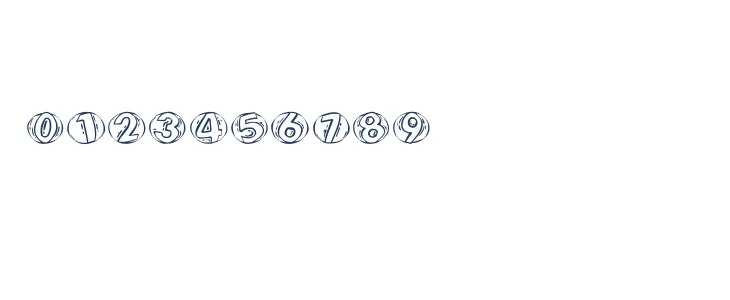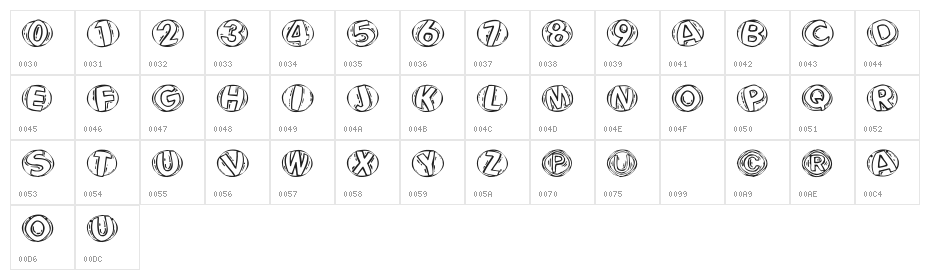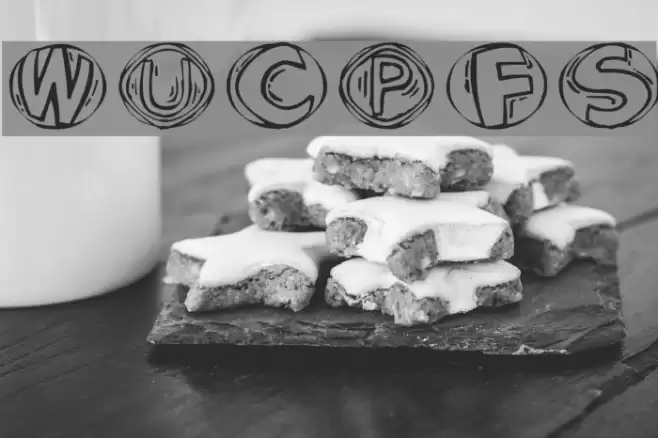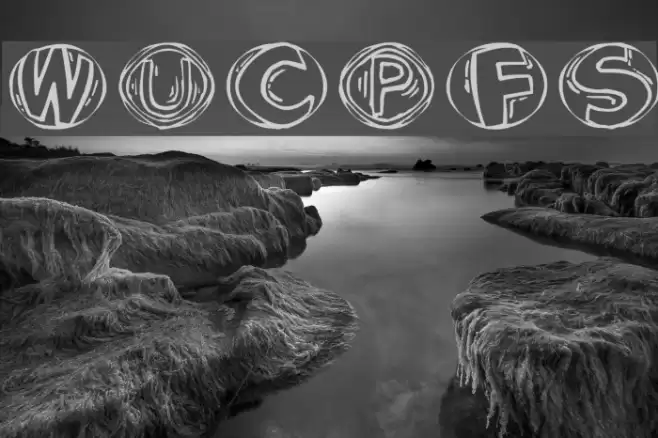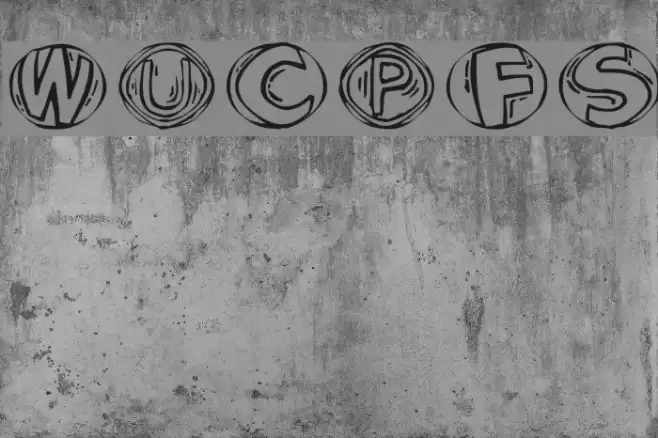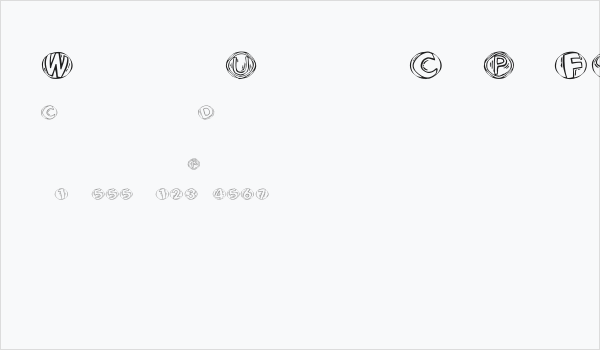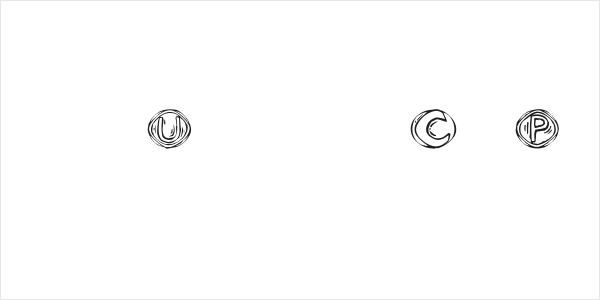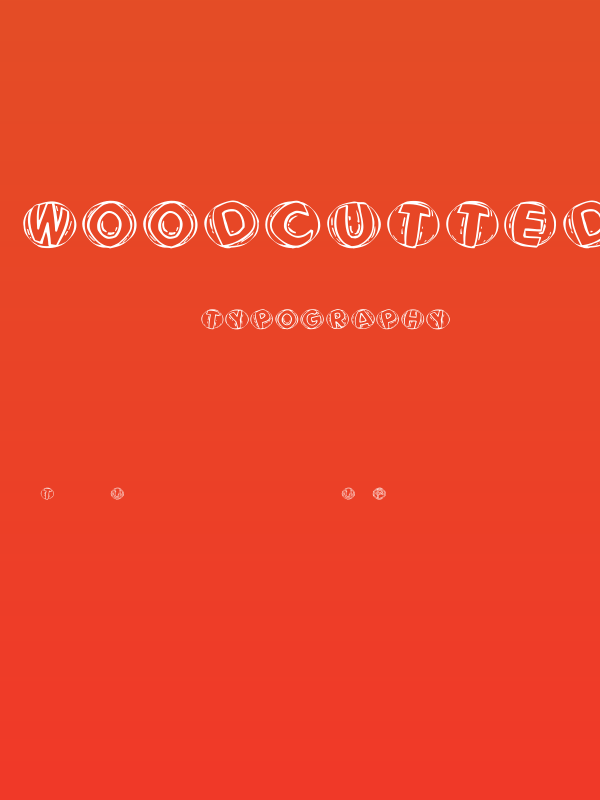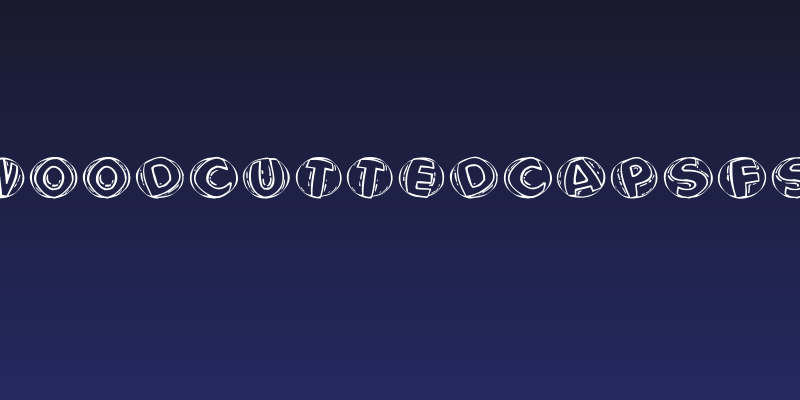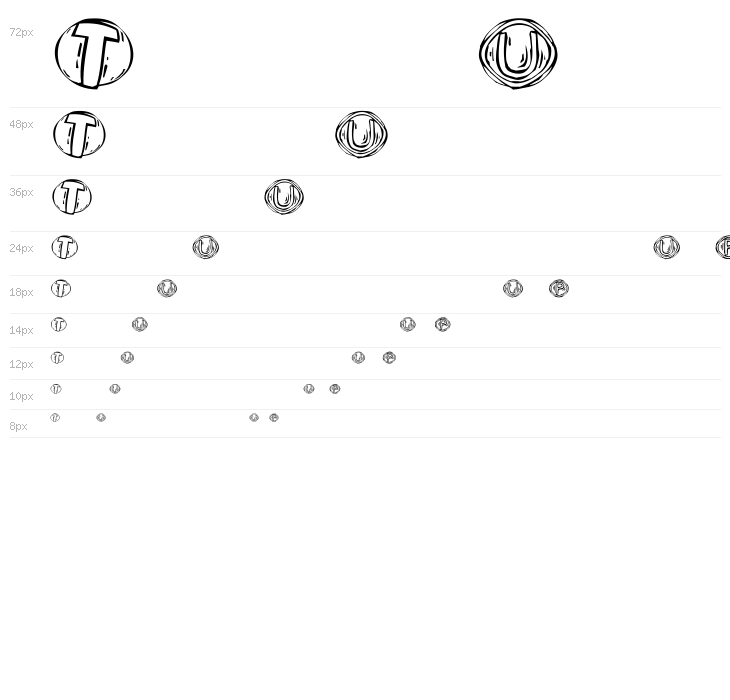
WoodcuttedCapsFS Font
WoodcuttedCapsFS Description
This font features a unique, hand-drawn style that mimics the appearance of letters carved into wood. Each character is encased in a circular outline, adding to its rustic charm. The lines are uneven and textured, giving a natural, organic feel reminiscent of traditional woodcut techniques. The font is highly decorative, with a playful and artistic flair, making it ideal for creative projects that require a touch of whimsy and individuality. The characters are bold and prominent, ensuring readability while maintaining their artistic integrity.
| Overall Style | Rustic, Artistic, Playful |
| Proposed Projects | Ideal for craft projects, children's book covers, logos for artisanal products, and rustic-themed event invitations. |